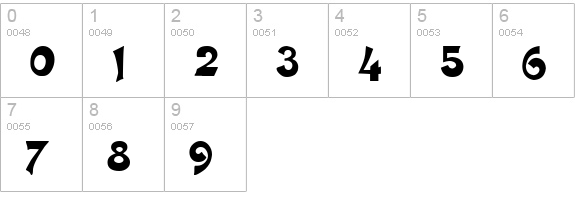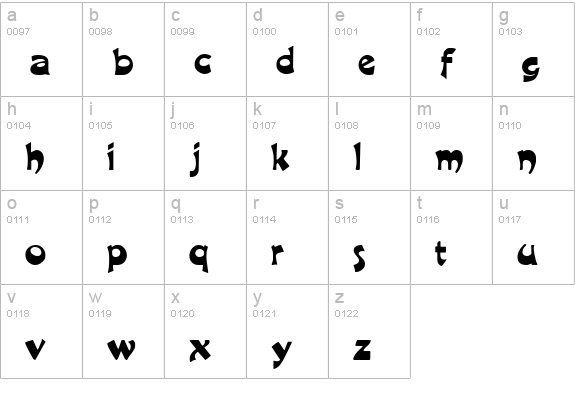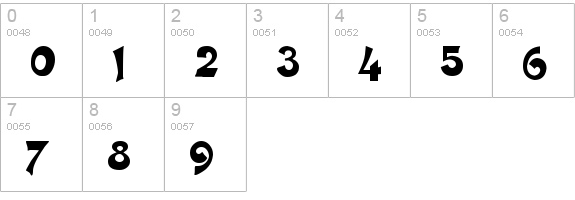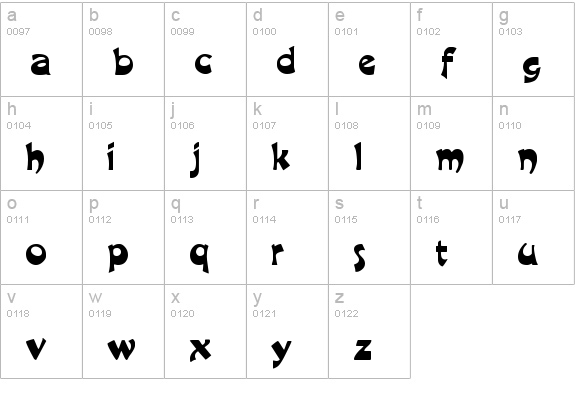
Crane Normal Font Details
Crane Normal is the standard, neutral variant in the Crane typeface family \xE2\x80\x94 well suited to general body text, paragraphs, and standard typographic work.
Crane Normal font is a modern and versatile typeface that exudes elegance and sophistication. With its clean lines and well-balanced proportions, this font is perfect for a wide range of design projects, from branding to editorial design. The Crane Normal font is effortlessly readable and adds a touch of class to any text it graces. Best of all, this font is available for free download at FontsMarket.com, making it easily accessible for designers and creatives looking to elevate their work with a touch of timeless style.